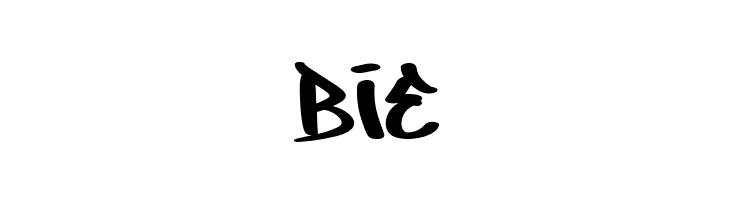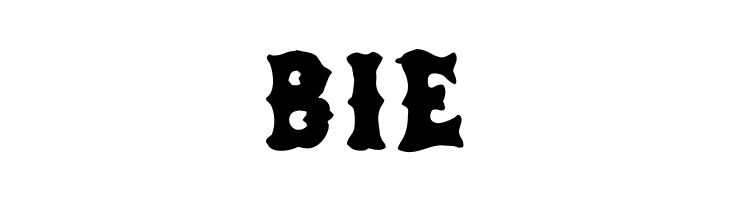
A whimsical and artistic font with elongated ascenders and descenders.
A bold, graffiti-inspired font with a dynamic and expressive style.
A bold, distressed font with a grunge, industrial style.
A rugged, distressed font with a vintage, weathered appearance.
A bold, distressed font with a grunge, textured appearance.
A bold, rugged font with a distressed, hand-crafted appearance.
A bold, futuristic font with geometric and decorative elements.